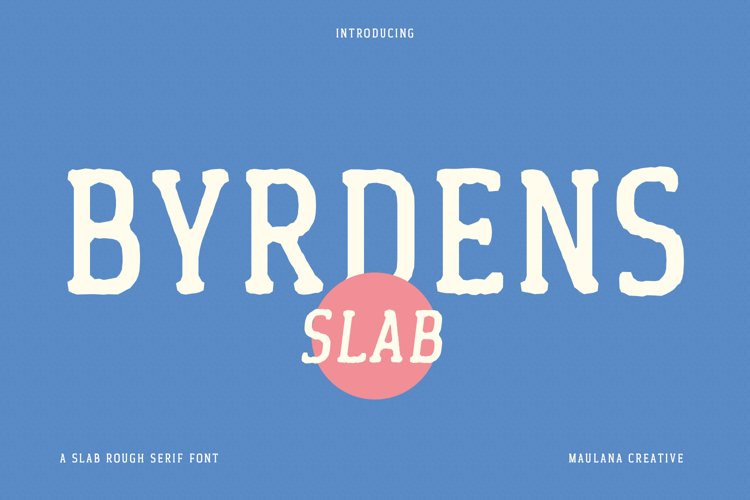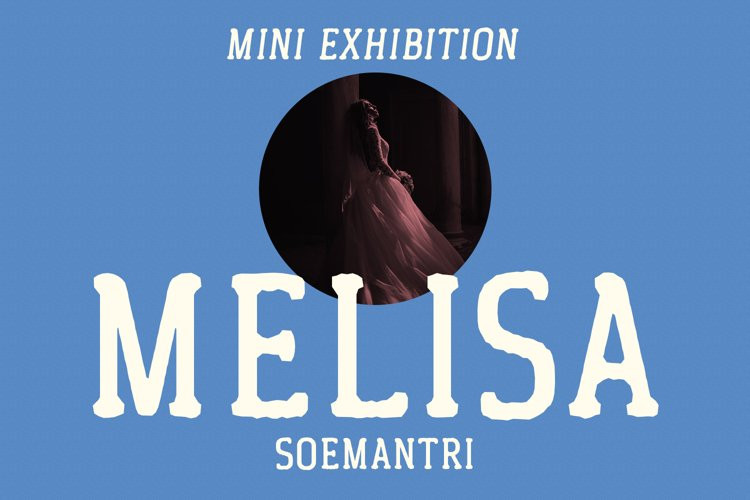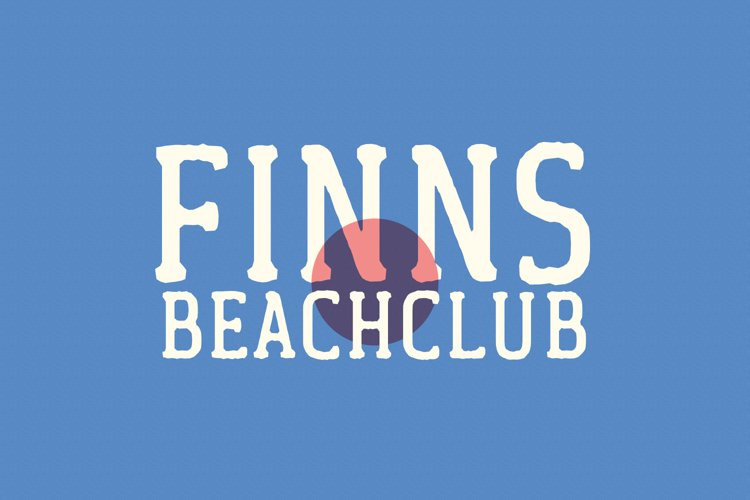
Byrdens Font
Byrdens FontByrdens is a retro slab serif font. With regular rounded stroke, fun character. To give you an extra creative work. Byrdens font support multilingual more than 100+ language. This font is good for logo design, Social media, Movie Titles, Books Titles, a short text even a long text letter and good for your secondary text font with script typeface. Make a stunning work with Byrdens font.